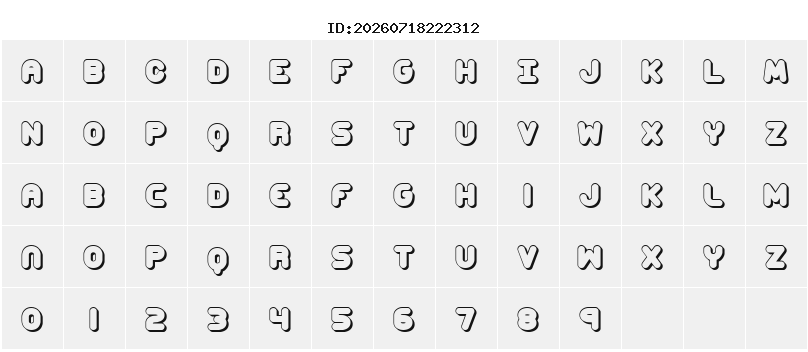
• Font Name: Corpulent Caps Shadow (BRK)
• Full Font Name: Corpulent Caps Shadow -BRK-
About Corpulent Caps Shadow (BRK).ttf
Corpulent Caps Shadow (BRK).ttf is a modern, elegant sans-serif font designed for ultimate readability and visual harmony. Perfect for branding, headlines, web design, and print materials.